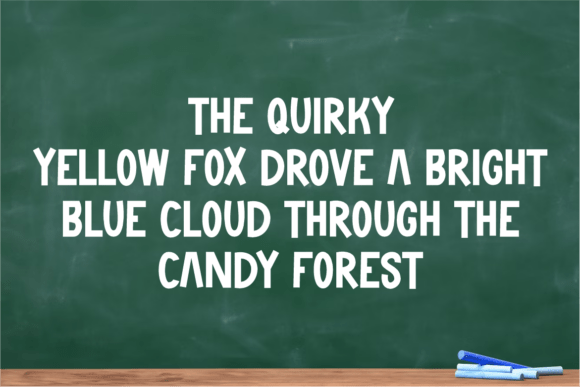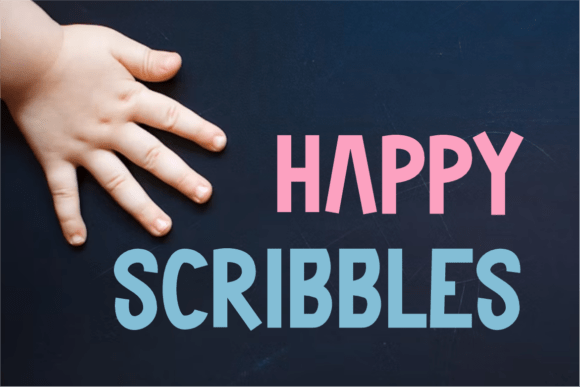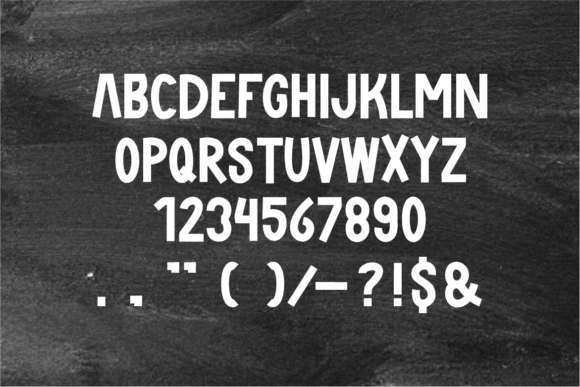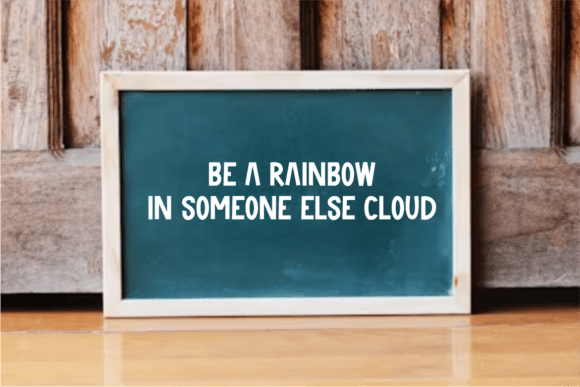
Introducing Chalk Future Font: A Playful and Charming Sans-Serif Display Font
Are you looking for a font that can add a touch of playfulness and friendliness to your designs? Look no further than the Chalk Future font. This delightfully playful and chunky sans-serif display font is perfect for creating educational materials, children’s books, or fun event signage that needs a casual and memorable voice.
Simulating the Organic Texture of Chalk on a Blackboard
One of the standout features of the Chalk Future font is its ability to simulate the organic, slightly uneven texture of writing on a blackboard with chalk. This gives your designs a charmingly rugged, hand-drawn aesthetic that is sure to capture the attention of your audience. The font’s texture is reminiscent of a classic classroom look, but with a fresh and modern twist.
High Readability and Versatility
Despite its playful appearance, the Chalk Future font boasts an incredibly high readability, making it perfect for use in a variety of contexts. Its simplified glyph structure makes it powerful for short, impactful messages, and its all-caps design (or unicase, as shown) gives it a versatile feel. Whether you’re creating a poster, a flyer, or a children’s book, this font is sure to deliver.
Shining in Bright Colors
The Chalk Future font really shines in bright colors, as demonstrated in the preview. This gives your designs a fun and energetic feel that’s perfect for grabbing the attention of your audience. Imagine using this font to create a colorful poster for a kids’ event, or to add a playful touch to a children’s book. The possibilities are endless!
The Chalk Future font is a perfect addition to any designer’s or crafter’s toolkit. Its unique blend of playfulness and readability makes it ideal for a wide range of projects, from educational materials to fun event signage. Whether you’re a seasoned designer or a crafty DIY enthusiast, this font is sure to inspire your creativity.
Key Features of Chalk Future Font
• Playful and chunky sans-serif display font
• Simulates the organic texture of writing on a blackboard with chalk
• Incredibly high readability
• Charmingly rugged, hand-drawn aesthetic
• Versatile all-caps design (or unicase)
• Simplified glyph structure for powerful short messages
• Perfect for educational materials, children’s books, or fun event signage
Tips for Using Chalk Future Font
Here are a few tips for getting the most out of the Chalk Future font:
• Use bright colors to make your designs pop
• Experiment with different font sizes and styles to add visual interest
• Pair with other fonts for a unique and playful look
• Use for short, impactful messages or titles
In conclusion, the Chalk Future font is a delightful addition to any designer’s or crafter’s toolkit. Its playful and charming aesthetic, combined with its high readability and versatility, make it perfect for a wide range of projects. Whether you’re creating educational materials, children’s books, or fun event signage, this font is sure to bring an energetic, simple, and authentically imperfect style to your designs.